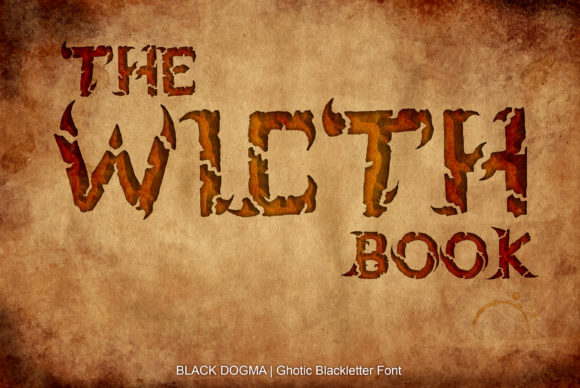
The Creepy Charm of Black Dogma Font: A Designer’s Delight
I still remember the night I was working on a Halloween-themed project for a client, and I was on a mission to find the perfect font to give it that eerie, mystical vibe. I had tried a dozen fonts, but none seemed quite right. That was when I stumbled upon the Black Dogma font. Its Gothic blackletter style and unique touch instantly captivated me, and I knew I had found the one. In this article, I’ll share my experience with Black Dogma, its features, and how to make the most of it in your designs.
An Honest Review of Black Dogma Font
• ✨ Unique Gothic blackletter style that adds a creepy sensation to designs
• ✅ Highly legible, even in smaller sizes
• 💡 Supports OpenType features, glyphs, and stylistic alternates for added versatility
• 🎨 Perfect for designs that require a touch of mystery, horror, or fantasy
While Black Dogma is an excellent font, it’s not without its quirks. For instance:
• 🤔 Some characters may appear a bit narrow, which can affect spacing in certain words or phrases
• ⚠️ Limited availability of language support, which might be a concern for multilingual designs
The Backstory of Black Dogma Font
Black Dogma’s design inspiration is shrouded in mystery, but it’s said to be the work of a talented type designer who drew inspiration from ancient, mystical texts and the dark, mysterious atmosphere of abandoned places. The font’s creator aimed to craft a typeface that would evoke a sense of eeriness and foreboding, while still maintaining legibility and elegance.
Q: What type of designs is Black Dogma best suited for?
A: Black Dogma is perfect for designs that require a touch of mystery, horror, or fantasy, such as Halloween-themed projects, Gothic-inspired branding, or dark, atmospheric photography.
Q: Is Black Dogma a difficult font to read?
A: Despite its Gothic blackletter style, Black Dogma is surprisingly legible, even in smaller sizes. However, it’s still a decorative font, and its readability may depend on the context in which it’s used.